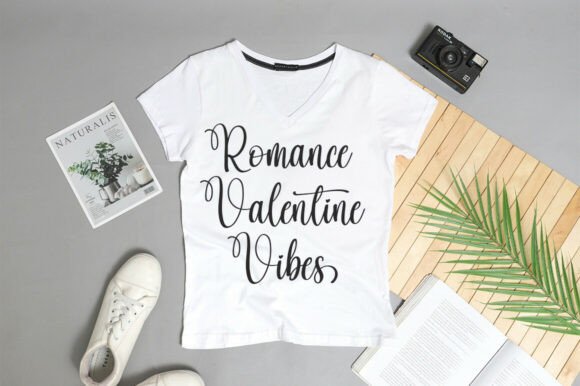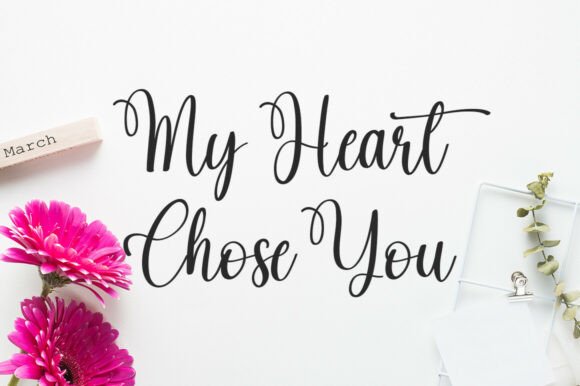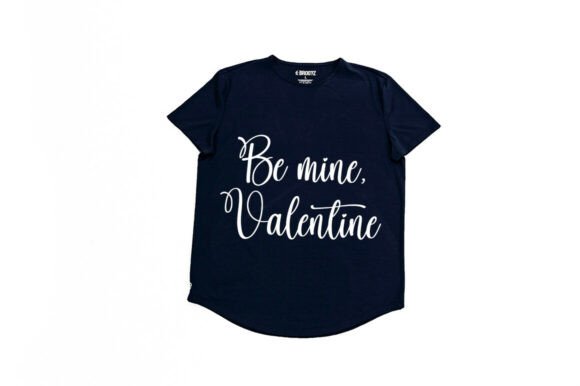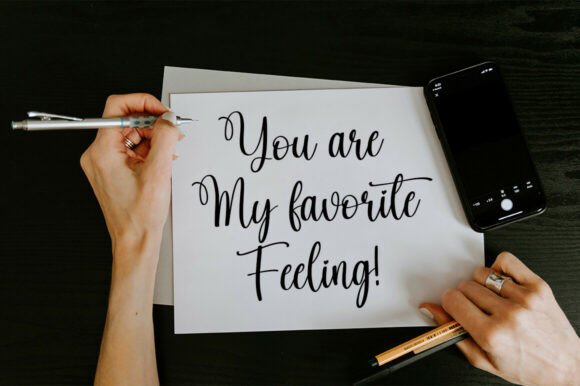
Happy Valentine Font: Add a Touch of Love to Your Designs
Are you looking for a font that can add a sweet and romantic touch to your creative projects? Look no further than the Happy Valentine Font! This beautiful handwritten script font is designed to bring love and warmth to your designs, making it perfect for Valentine’s Day projects and any other design that needs a touch of love.
What is Happy Valentine Font?
Happy Valentine is a romantic and charming handwritten script font that is sure to capture the hearts of your audience. With its playful curves and charming strokes, this font is perfect for adding a personal and emotional touch to your designs. Whether you’re creating Valentine’s Day cards, wedding invitations, or any other design that requires a touch of love, Happy Valentine Font is the perfect choice.
Key Features of Happy Valentine Font
• Handwritten Script Font: Happy Valentine Font is a handwritten script font that gives your designs a personal and emotional touch.
• Playful Curves and Charming Strokes: The font features playful curves and charming strokes that add a touch of romance and whimsy to your designs.
• Perfect for Valentine’s Day Designs: Happy Valentine Font is specifically designed for Valentine’s Day designs, making it the perfect choice for creating romantic and sweet designs.
• Easy to Read and Use: The font is easy to read and use, making it perfect for designers and crafters of all levels.
• Valentine’s Day cards and invitations
• Wedding invitations and decorations
• Romantic quotes and posters
Benefits of Using Happy Valentine Font
• Adds a Touch of Love and Romance: Happy Valentine Font adds a touch of love and romance to your designs, making them perfect for Valentine’s Day and other romantic occasions.
• Unique and Eye-Catching: The font is unique and eye-catching, making your designs stand out from the crowd.
• Easy to Read and Use: The font is easy to read and use, making it perfect for designers and crafters of all levels.
• Versatile: Happy Valentine Font is versatile and can be used in a variety of designs, from Valentine’s Day cards to wedding invitations.
• Use it with Other Fonts: Happy Valentine Font can be paired with other fonts to create a unique and eye-catching design.
Happy Valentine Font is a beautiful and romantic handwritten script font that is perfect for adding a touch of love and warmth to your designs. With its playful curves and charming strokes, this font is sure to capture the hearts of your audience. Whether you’re creating Valentine’s Day designs, wedding invitations, or any other design that requires a touch of love, Happy Valentine Font is the perfect choice. So why wait? Download Happy Valentine Font today and start creating romantic and sweet designs!